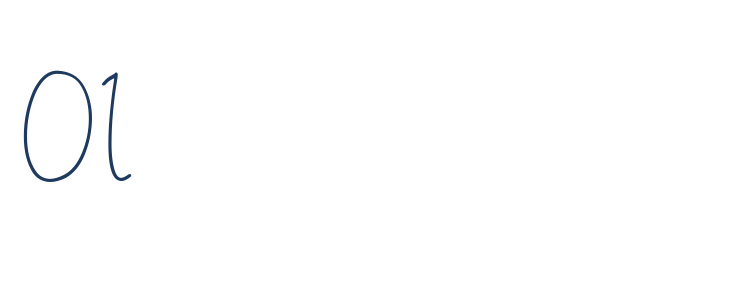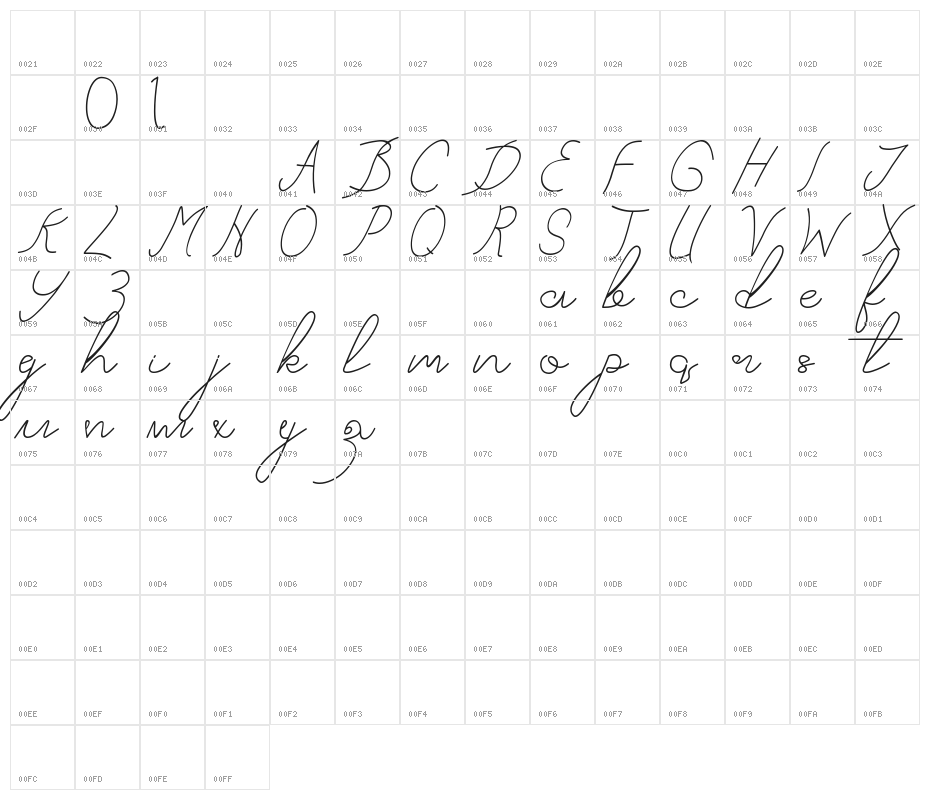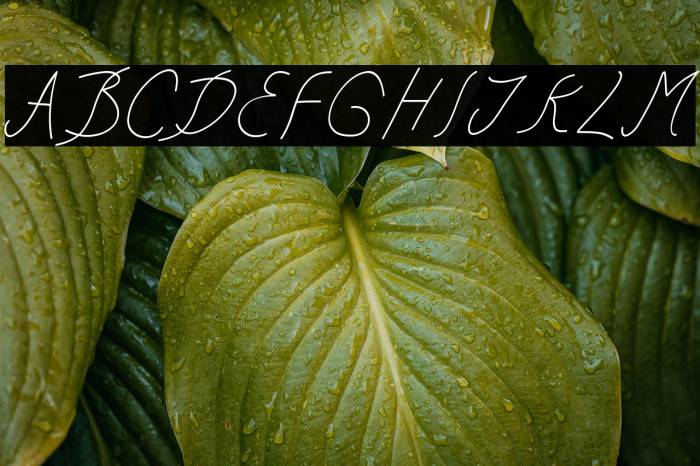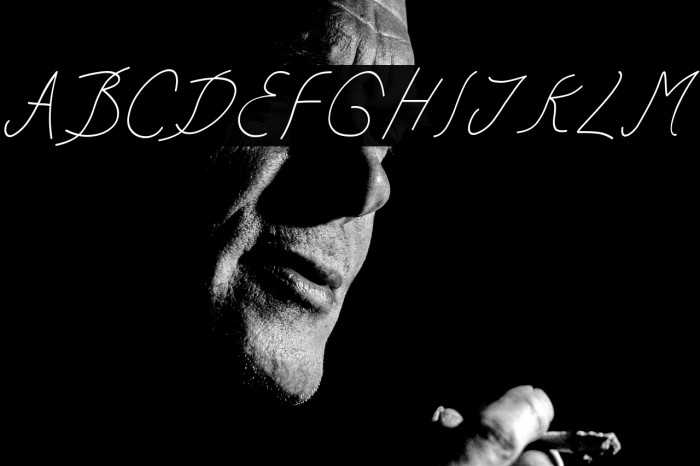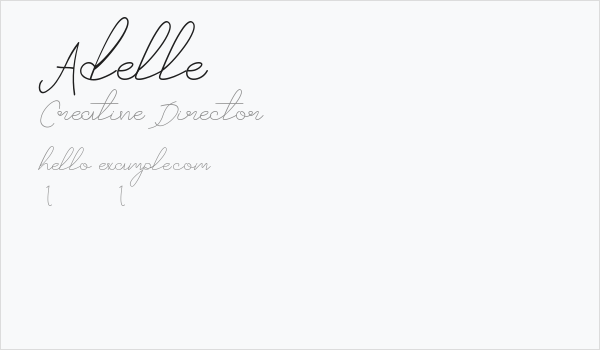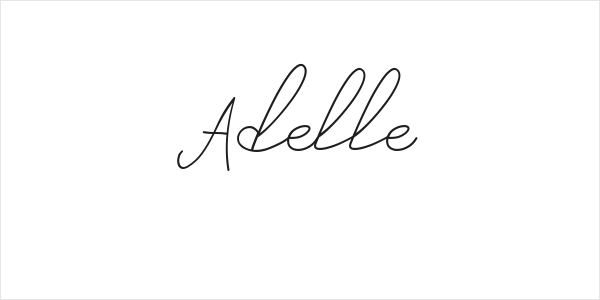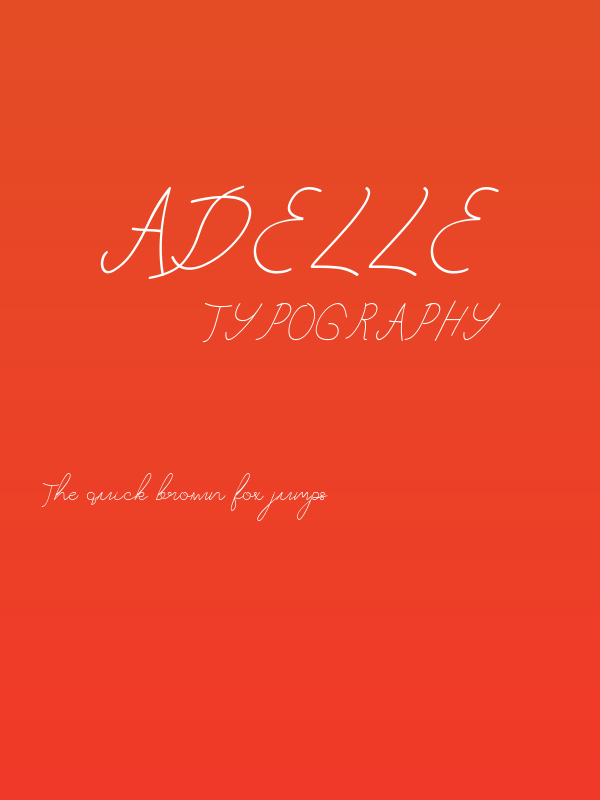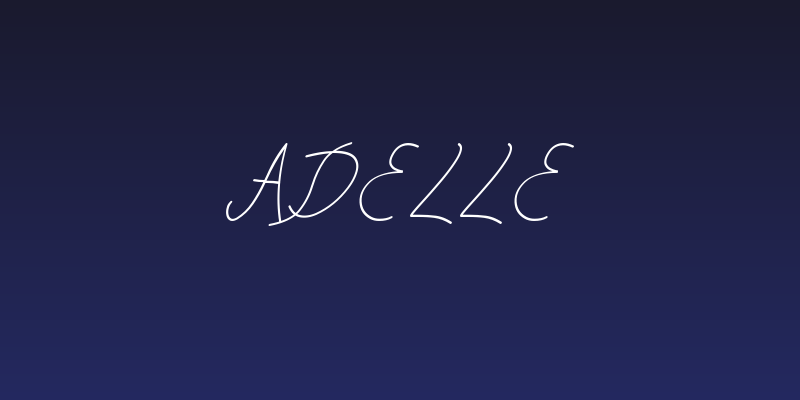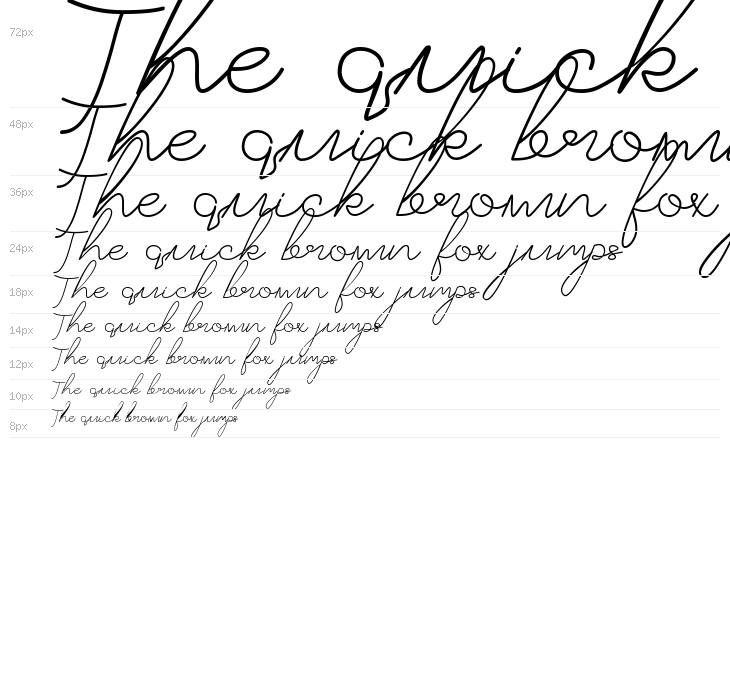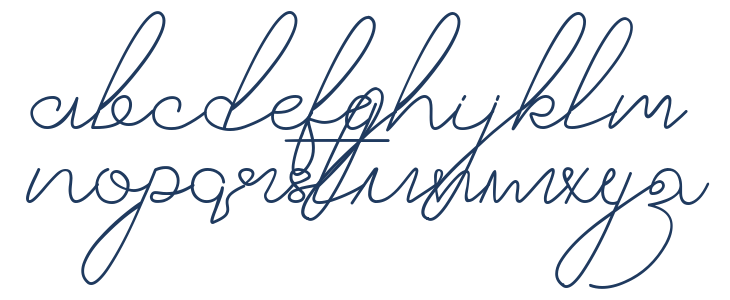
Adelle Font
Adelle Description
This elegant script font features fluid, connected strokes that mimic the natural flow of handwriting. The uppercase letters are tall and graceful, with a slight slant that adds a touch of sophistication. The lowercase letters are more compact, maintaining a consistent rhythm and flow throughout. The numerals are distinct yet harmonious with the overall style, and the special characters blend seamlessly with the rest of the set. This font exudes a sense of elegance and refinement, making it suitable for formal invitations, branding, and other projects that require a touch of class.
| Overall Style | Elegant |
| Use Case | Invitations, Branding, Stationery |
| Proposed Projects | Ideal for wedding invitations, elegant branding, personal stationery, and luxury product packaging. |